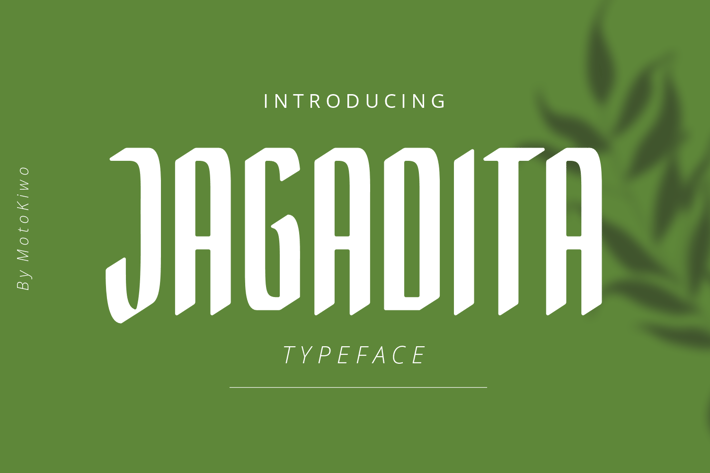
Jagadita, Display Font
Motokiwo
Jagadita is a display font that will be great for headline, posters, movie title, and more. It's a stand out typeface with eye catching characters style.